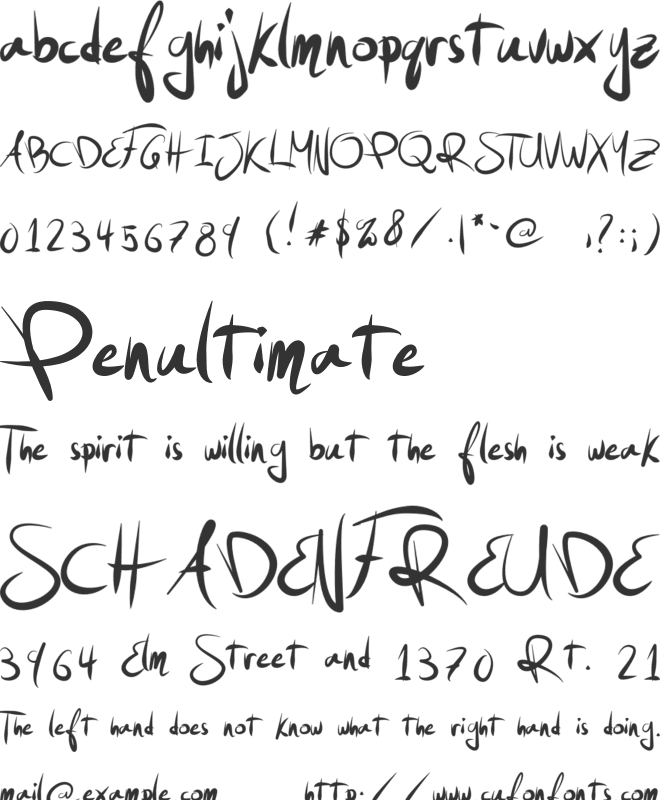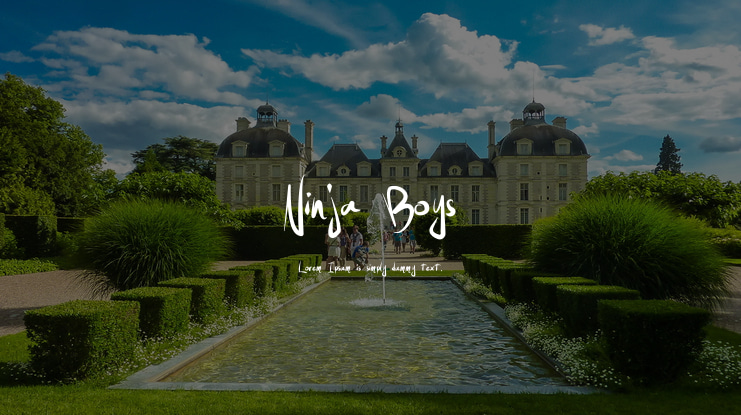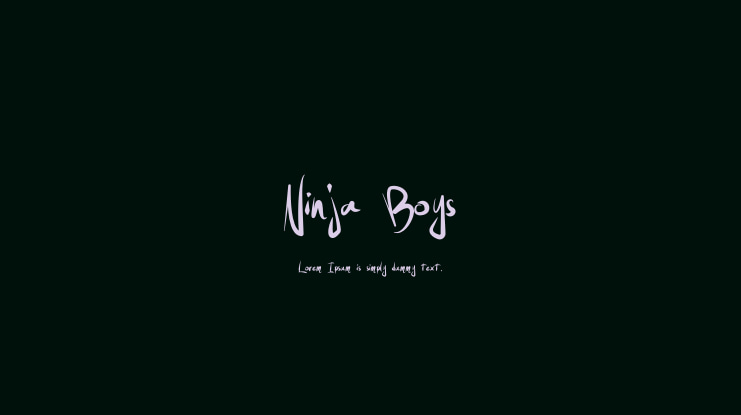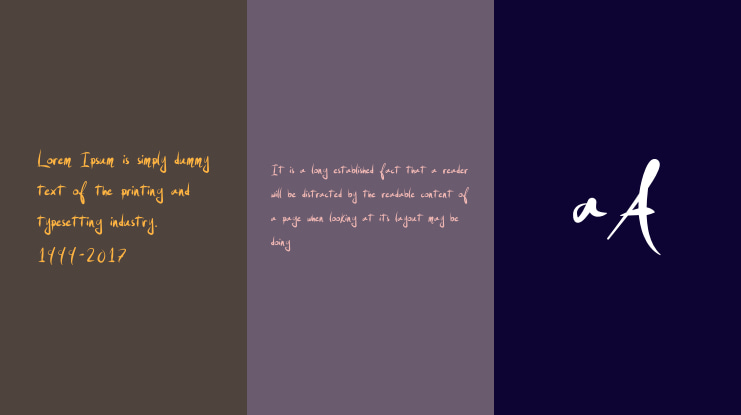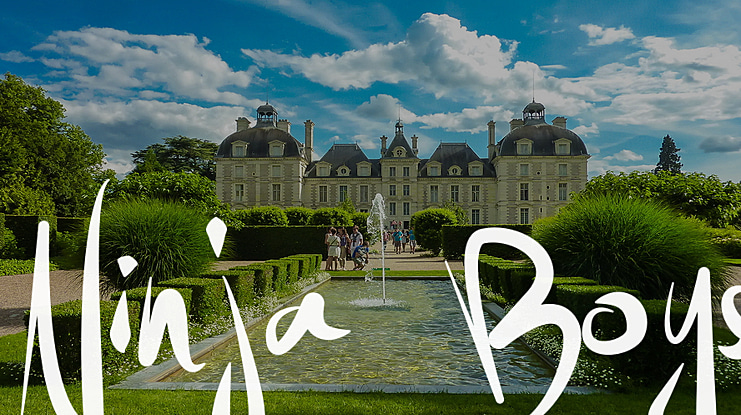
Ninja Boys Font
Ninja Boys is a modern and fun handwritten font that can be used for games, quotes, feminine or organic logos, small business branding, business card, packaging, and many more creative ideas!